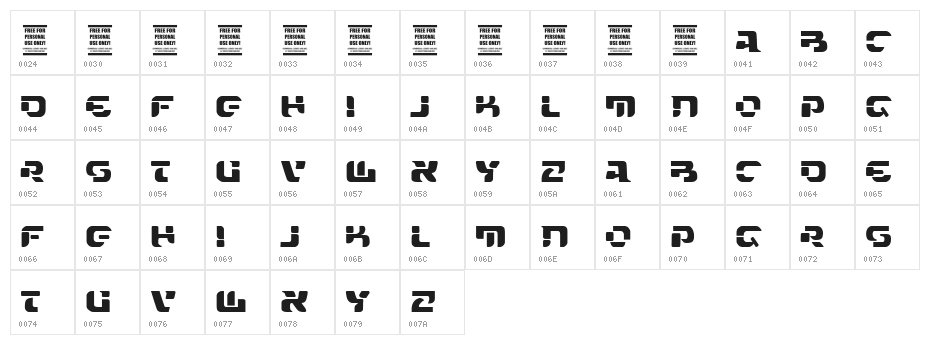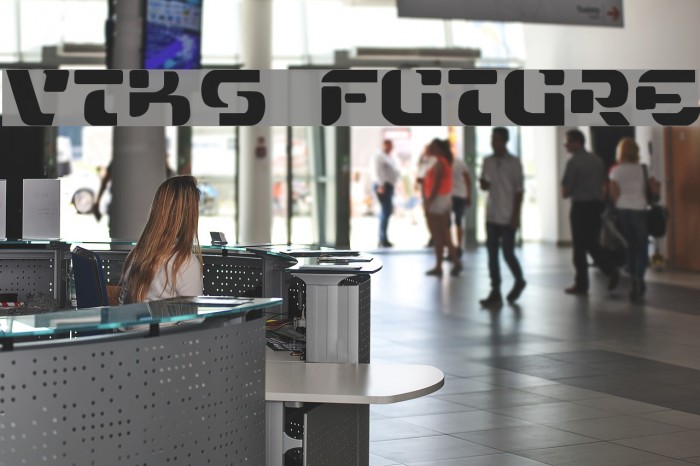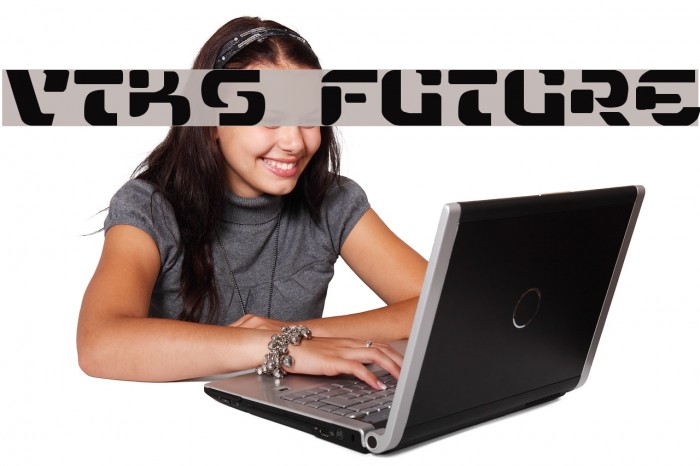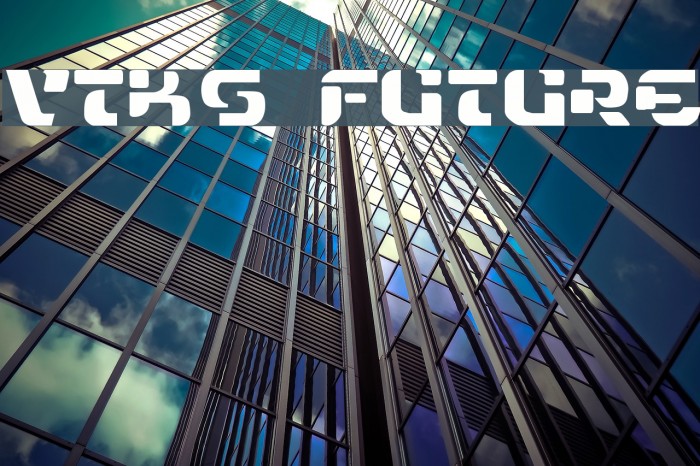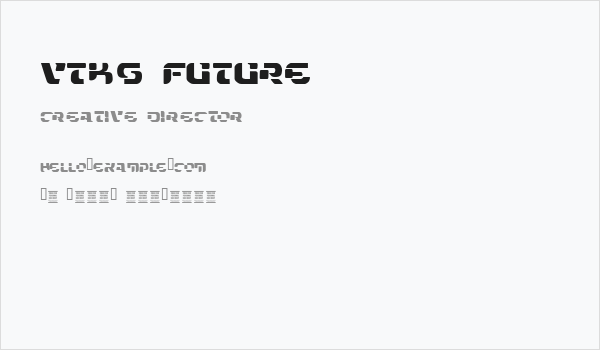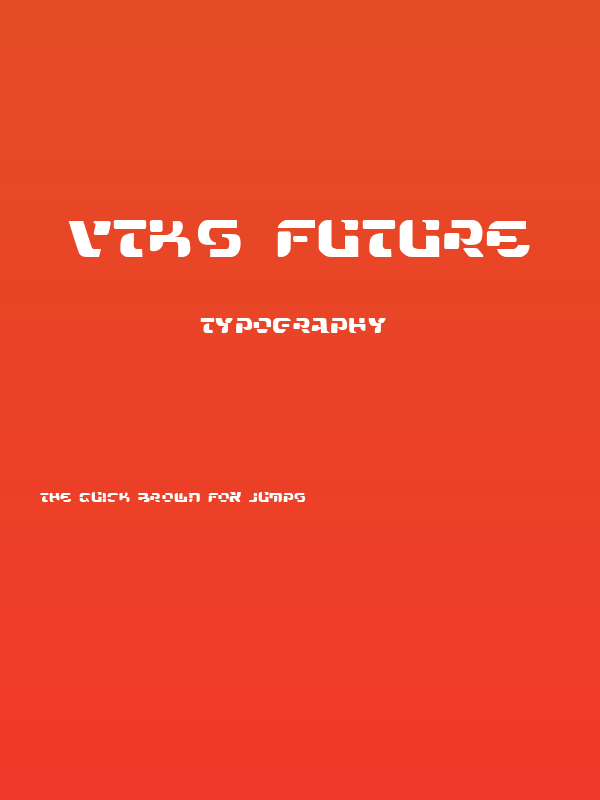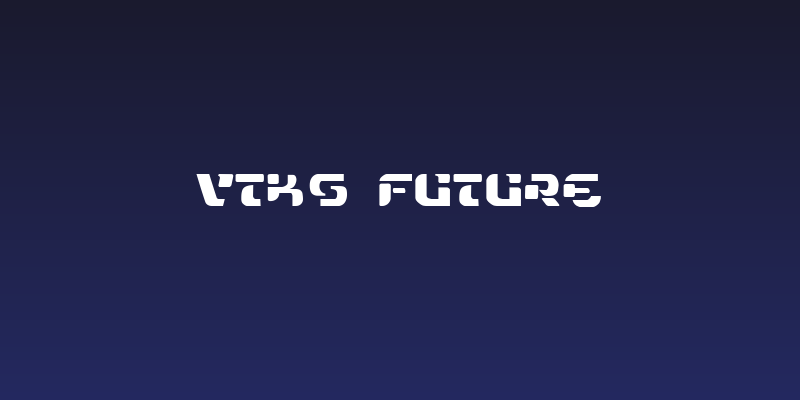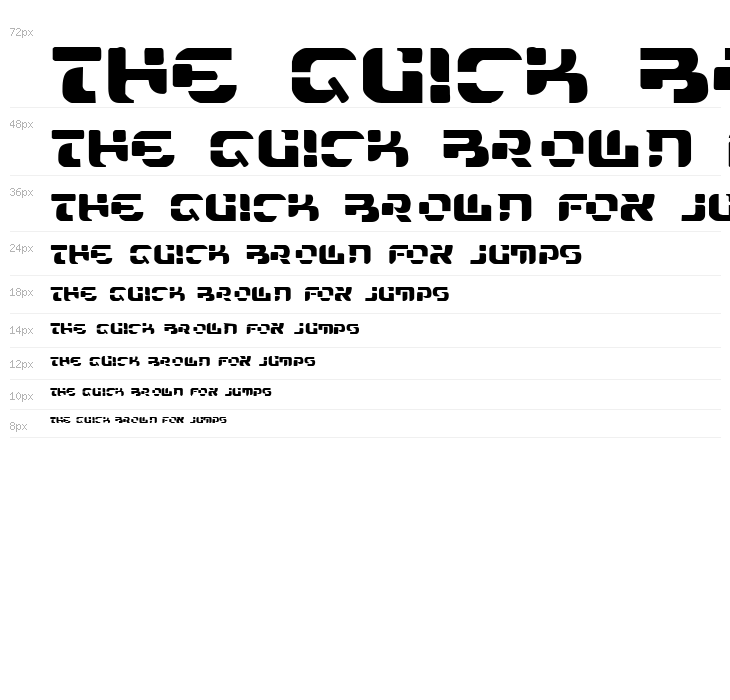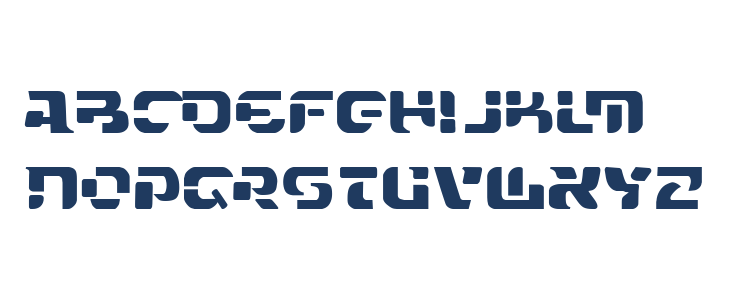
VTKS FUTURE Font
VTKS FUTURE Description
This font features a futuristic and bold design with a distinct geometric style. The characters are constructed with a combination of solid and cut-out shapes, creating a unique, fragmented appearance. The uppercase letters are particularly striking, with angular lines and sharp edges that convey a sense of modernity and innovation. The lowercase letters maintain the same aesthetic, ensuring consistency throughout the typeface. The numbers and special characters are designed to match the overall theme, making this font ideal for projects that require a cutting-edge, tech-inspired look.
| Proposed Projects | Ideal for sci-fi themed designs, technology branding, video game titles, and futuristic posters. |